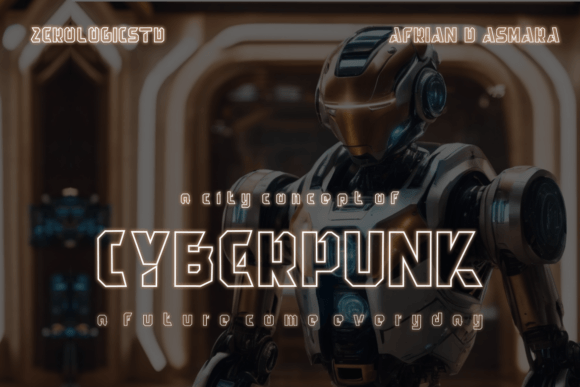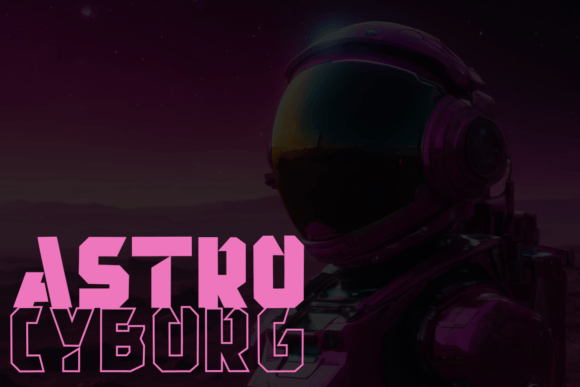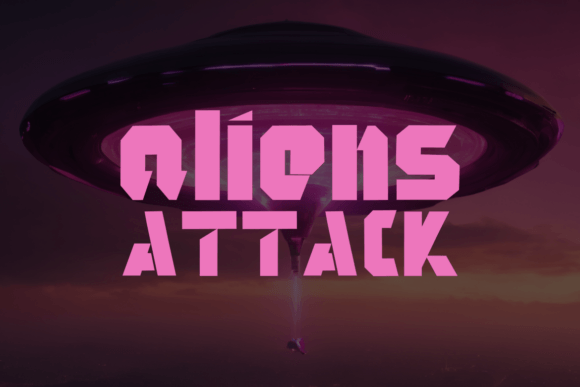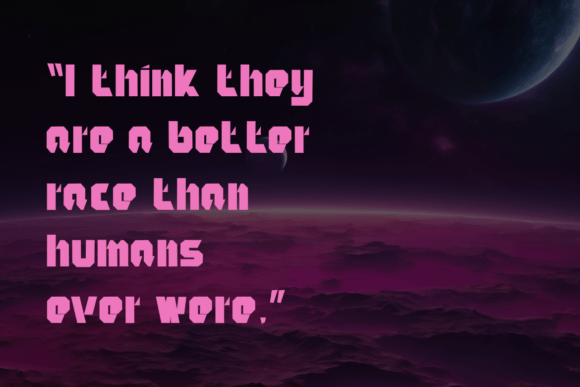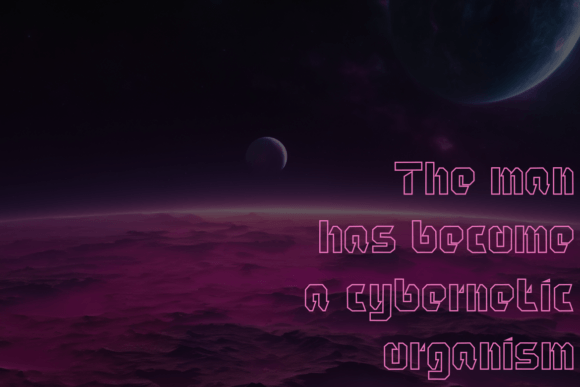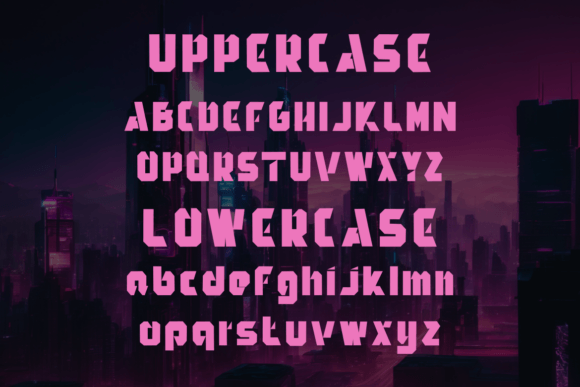
Aeroforce Font: Elevate Your Designs with a Futuristic Twist
In the realm of design, fonts play a pivotal role in conveying messages, evoking emotions, and creating lasting impressions. For designers and crafters seeking a font that embodies the essence of the future while maintaining an original touch, Aeroforce Font is an exceptional choice. Designed with precision and creativity, Aeroforce is not just a font; it’s a statement piece for your designs.
The Essence of Aeroforce Font
Aeroforce Font is a meticulously crafted, futuristic font that brings a unique blend of strength and elegance to the table. Its design is centered around providing a cool and impactful aesthetic, making it perfect for a wide array of design projects. Whether you’re working on titles, typography, posters, magazines, brochures, packaging, or websites, Aeroforce is engineered to enhance your creative output.
Key Features of Aeroforce Font
• Comprehensive Character Set: Aeroforce Font comes complete with uppercase and lowercase letters, numeric characters, and symbols. This extensive character set ensures versatility and flexibility in your design projects.
• Strong and Sharp Design: The font’s strong and sharp design elements make it stand out, adding a modern and dynamic feel to any design.
• Futuristic Aesthetic: With its futuristic design, Aeroforce Font is ideal for projects that require a forward-thinking approach, making it perfect for technology, innovation, and creative industries.
• High Versatility: Its adaptability across various mediums, from print to digital, makes Aeroforce a valuable asset for designers looking to expand their creative horizons.
Applications of Aeroforce Font
The versatility of Aeroforce Font makes it suitable for a multitude of applications. Here are some of the key areas where Aeroforce can make a significant impact:
• Typography and Posters: Create eye-catching posters and typographic designs that demand attention.
• Magazines and Brochures: Elevate your editorial designs with a modern and engaging font.
• Packaging: Stand out on store shelves with packaging designs that incorporate Aeroforce’s unique aesthetic.
• Websites: Enhance your website’s visual appeal with Aeroforce, creating a memorable user experience.
Why Choose Aeroforce Font?
In a market flooded with fonts, Aeroforce stands out for several reasons:
• Original Touch: Unlike generic fonts, Aeroforce offers an original design that can set your work apart from the competition.
• Quality and Precision: Designed with attention to detail, Aeroforce ensures high-quality representation across all design projects.
• Support for Creative Needs: Whether you’re a professional designer or a crafting enthusiast, Aeroforce is tailored to meet your creative needs.
Aeroforce Font is more than just a typeface; it’s a tool for creativity and innovation. Its futuristic design, comprehensive character set, and versatile applications make it an indispensable asset for designers and crafters alike. By incorporating Aeroforce into your design projects, you’re not just choosing a font; you’re embracing a new dimension of creative possibility. Elevate your designs, make them more engaging, and let Aeroforce be the voice that speaks your creative vision to the world.